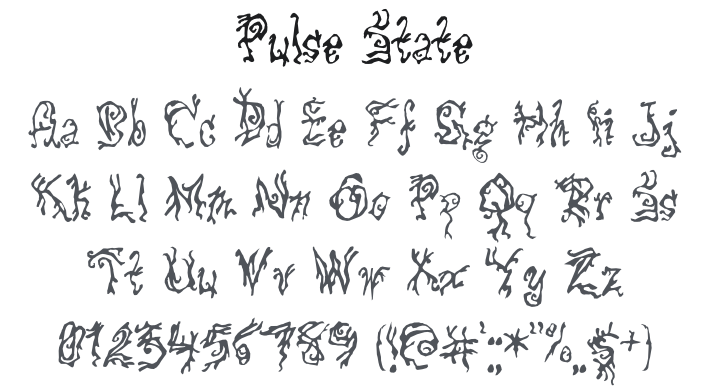
Pulse State Font
About Pulse State
Pulse State is a wispy, spectral display typeface where bold letterforms appear to dissolve and fray at the edges — strokes trailing off into ghostly wisps and curling tendrils as if the ink itself is evaporating. The result feels haunted and ethereal yet retains a dark, gothic backbone. Perfect for Halloween designs, gothic branding, horror game titles, occult posters, and any headline needing a mysteriously decaying, supernatural atmosphere.